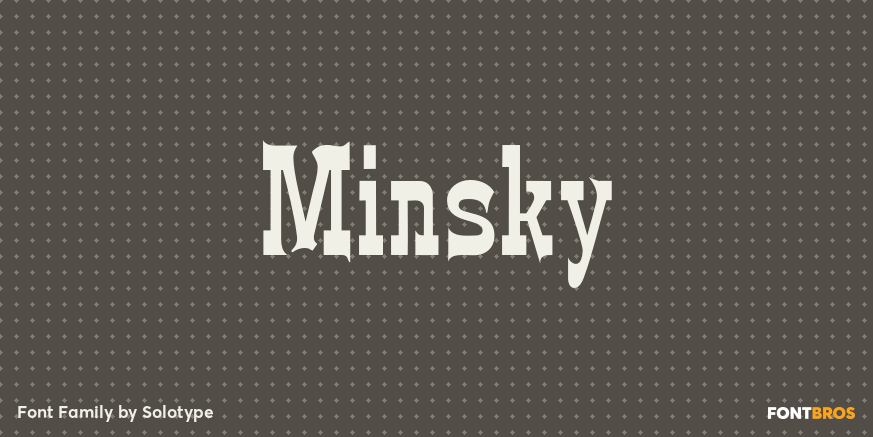
Minsky
About Minsky
The Bruce Foundry in New York gave this Italian Clarendon the catchy name of Ornamented No. 1529. The original had a top right white shadow which we eliminated. Additionally we improved the color of several of the characters.